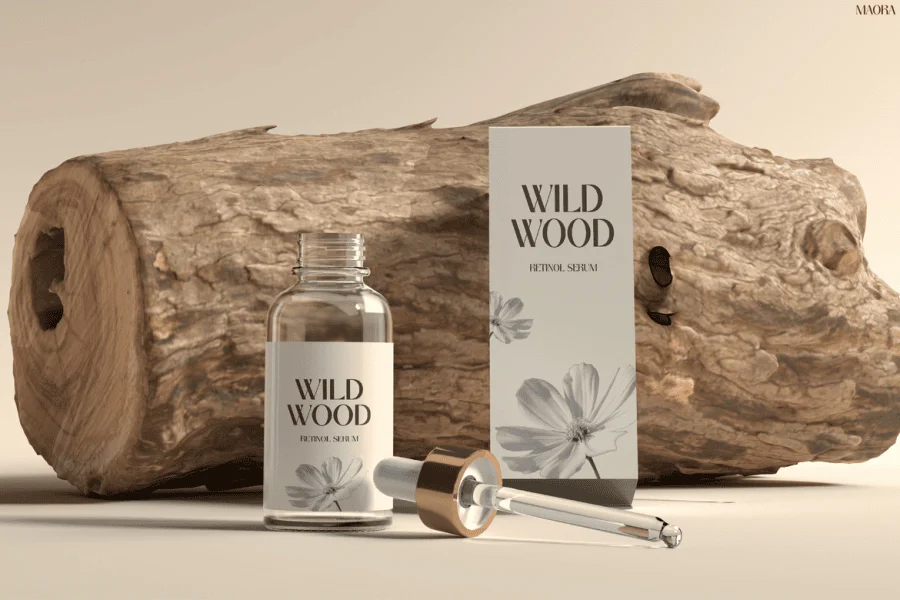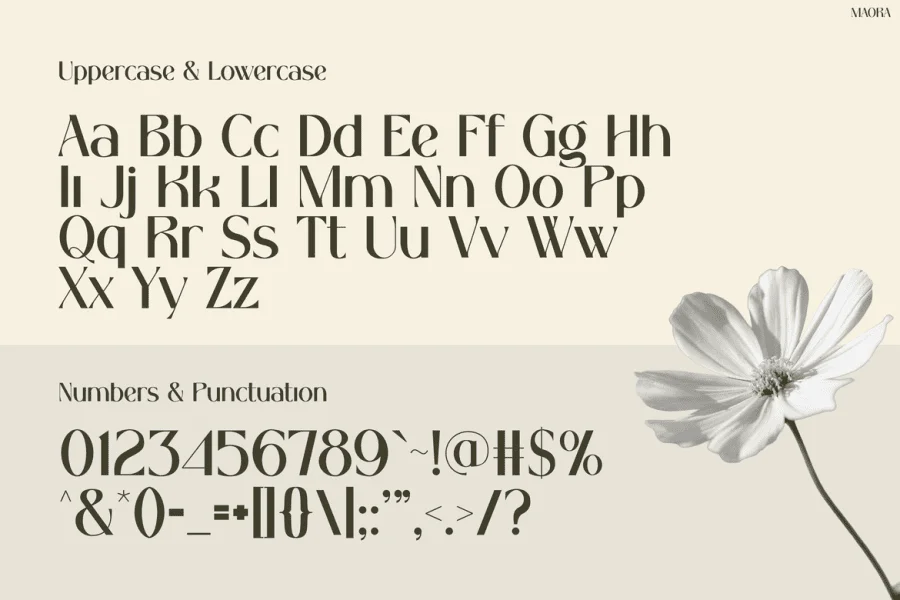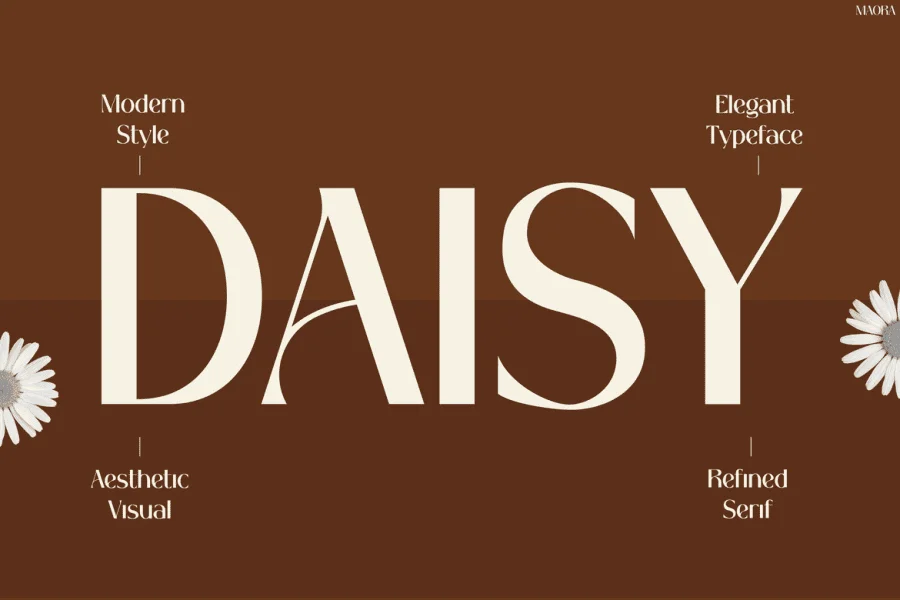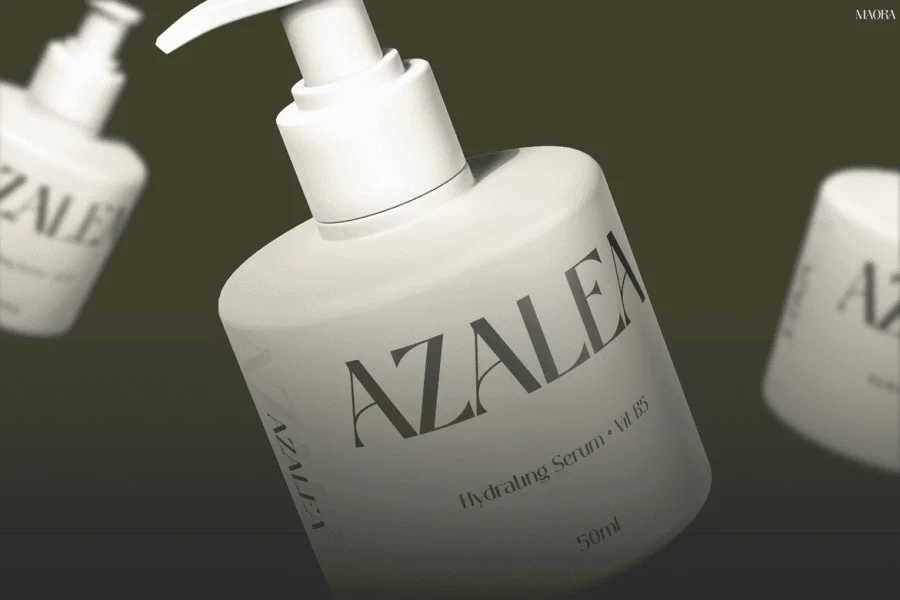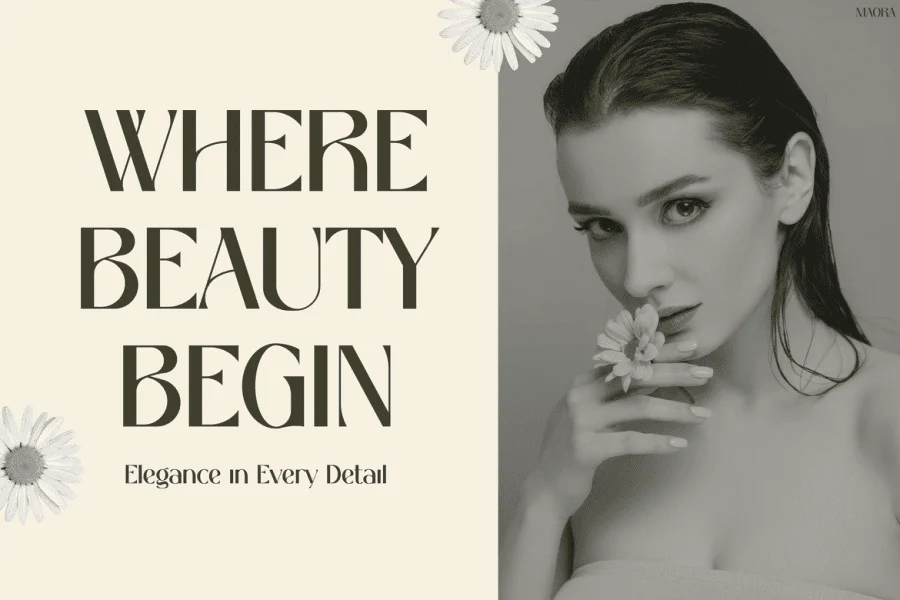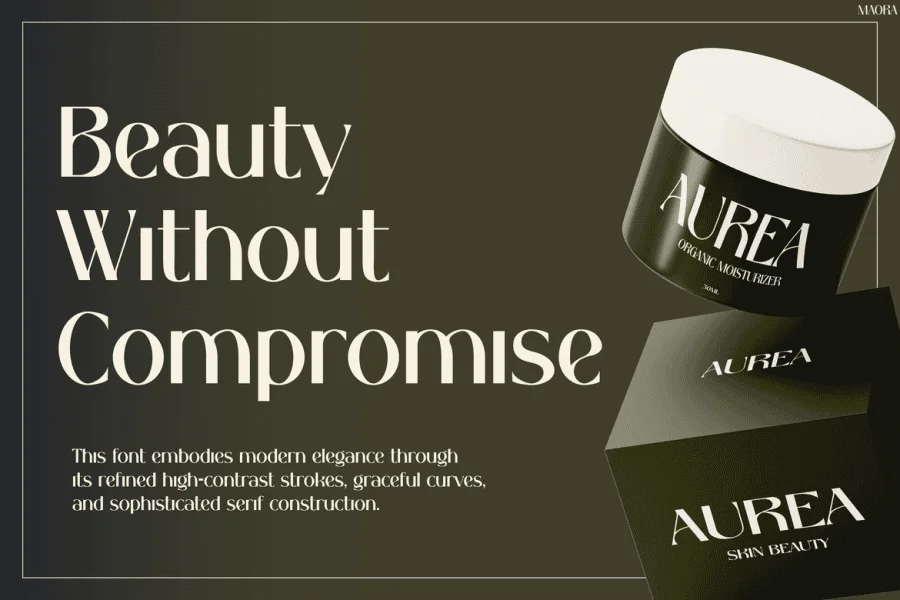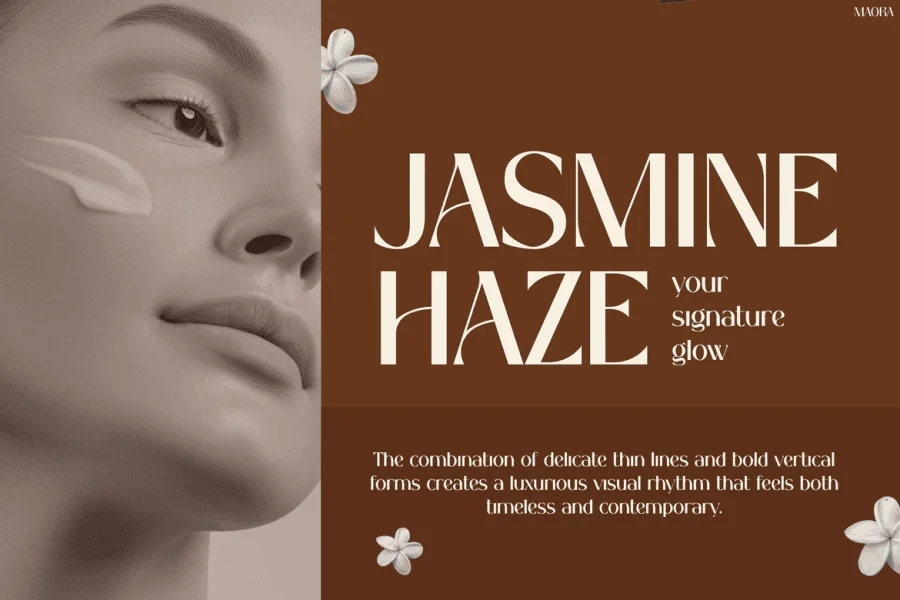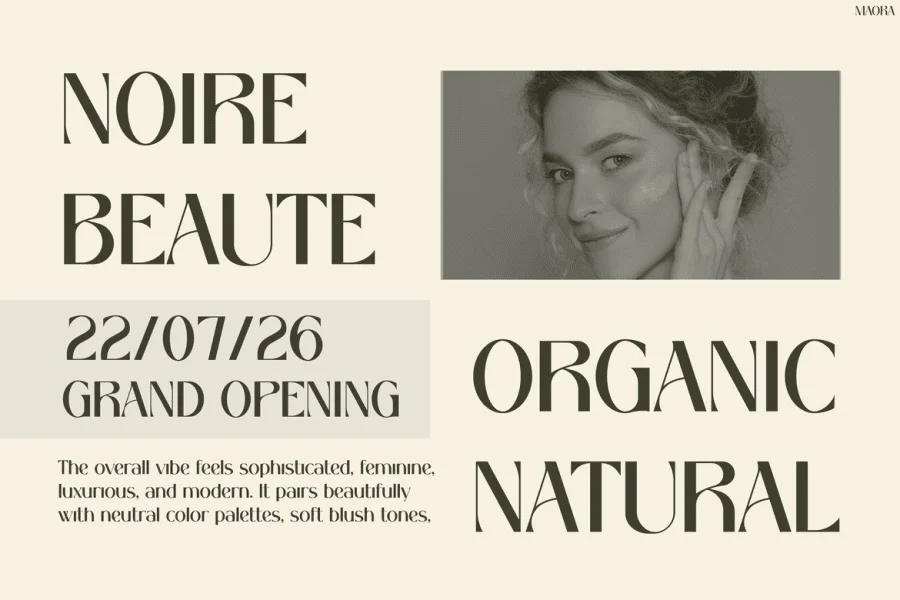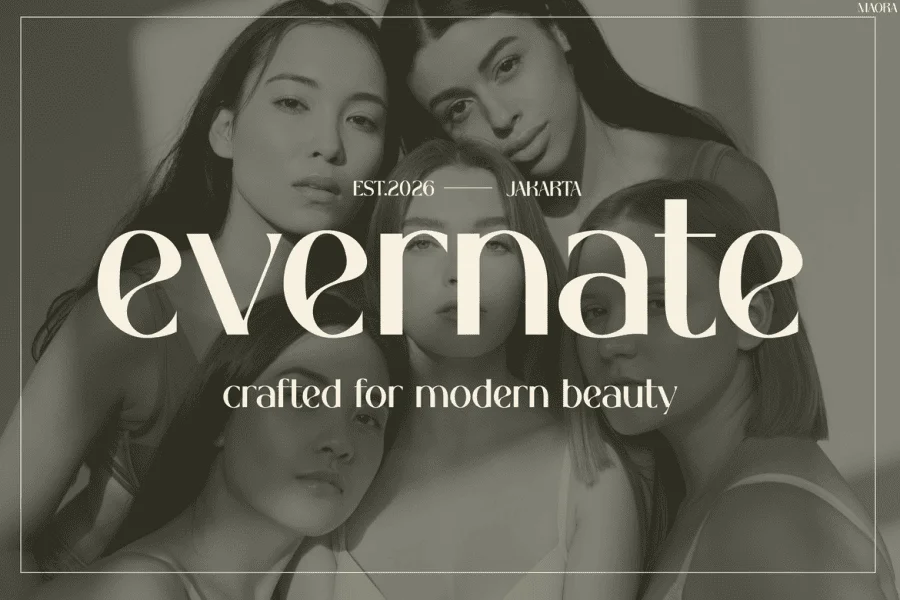
Maora is a refined, high-contrast serif typeface that balances structural rigidity with fluid, organic transitions. Its letterforms feature extreme shifts in stroke weight, pairing robust, bold vertical stems with delicate, thin horizontal strokes. The overall construction is tall and condensed, creating a sophisticated and architectural vertical rhythm. Subtle, sharp-edged terminal spurs anchor the letters, while graceful, sweeping curves introduce an element of organic softness to the otherwise crisp, planar geometry.
This typeface is exceptionally suited for high-end editorial mastheads, luxury cosmetics branding, and minimalist packaging layouts. Its dramatic contrast and clean, modern elegance make it an ideal choice for prominent display settings, such as book covers, fashion lookbooks, and sophisticated digital user interfaces where a sense of quiet luxury and refined detail is required.